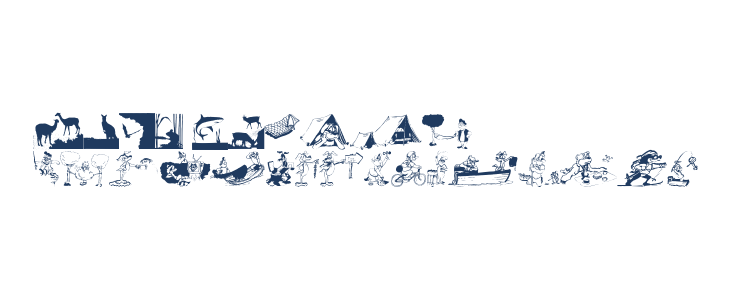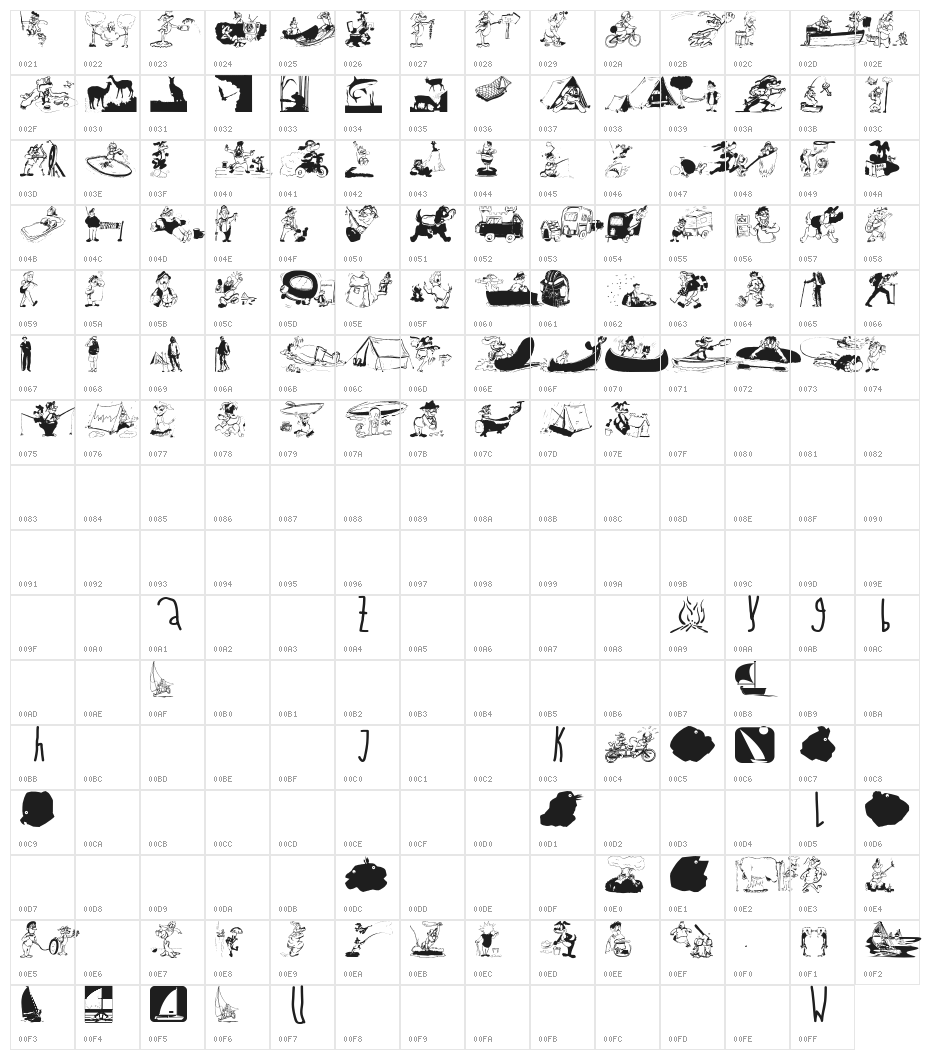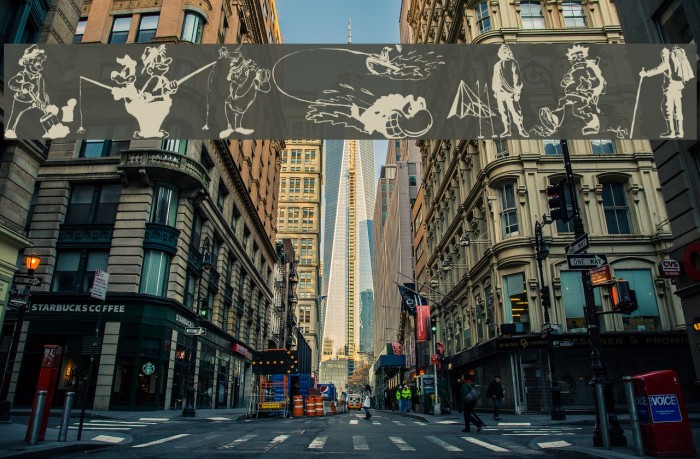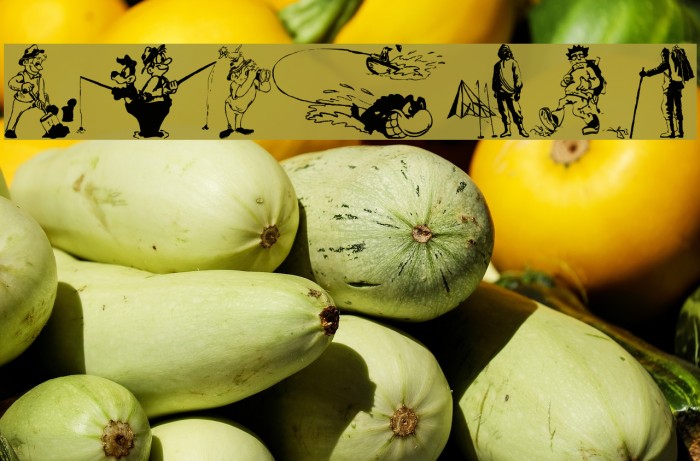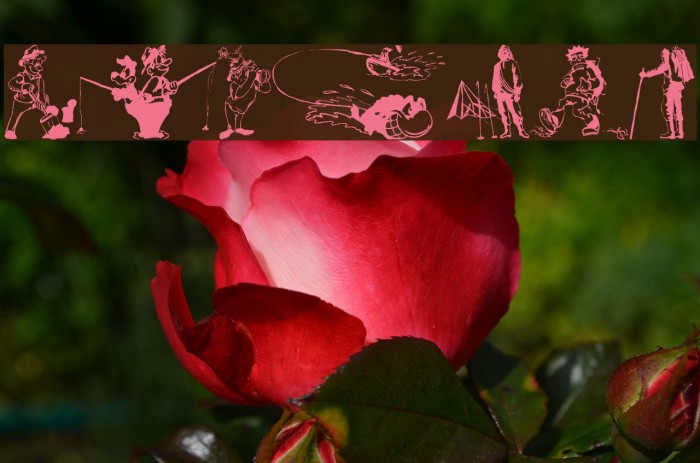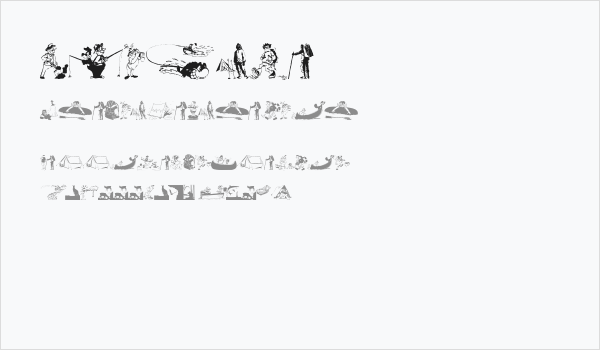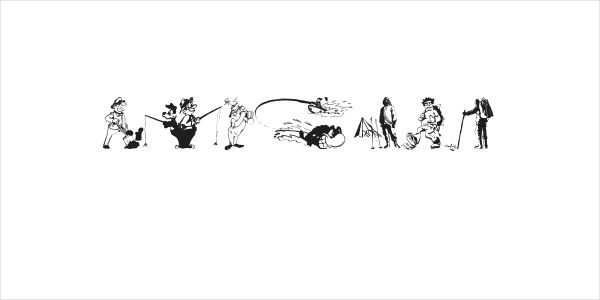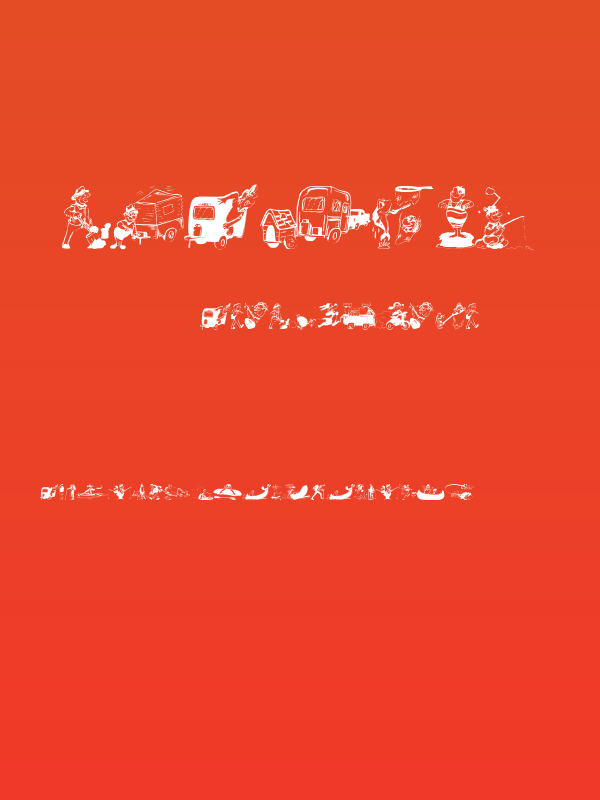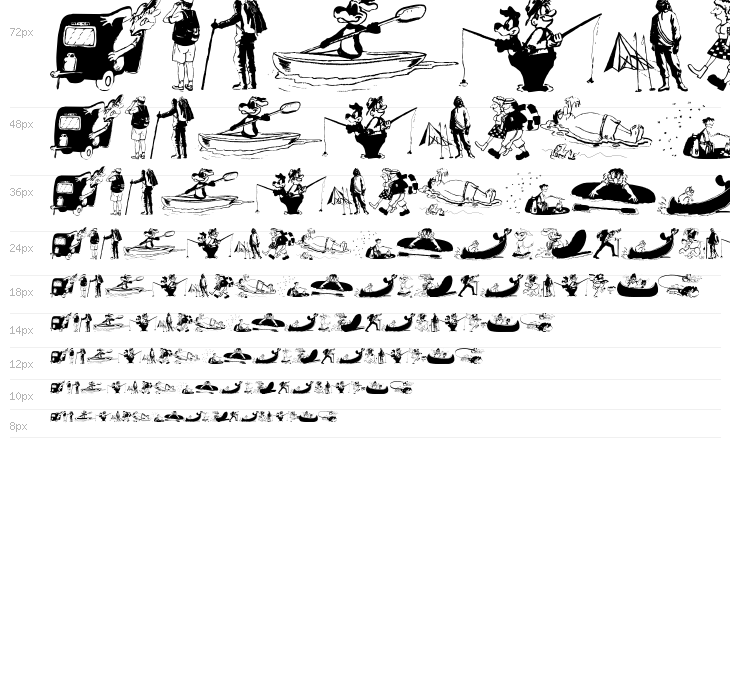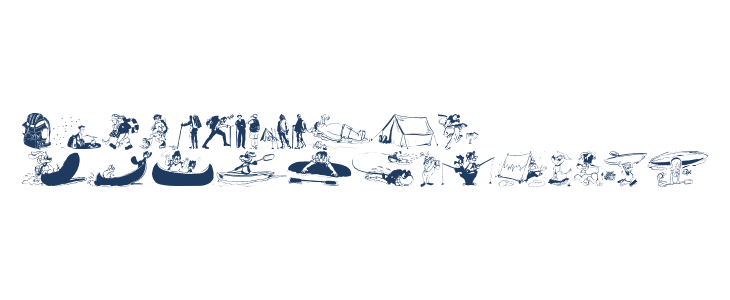
A playful, highly decorative font composed of detailed cartoon illustrations depicting outdoor activities, camping, and nature scenes for each character. The glyphs are unique drawings rather than traditional letterforms, making each character visually distinct and lively.
| Overall Style | Decorative, Playful, Whimsical |
| Use Case | Logos, Headlines, Posters, Themed Graphics |
| Proposed Projects | ChildrenΓ’β¬β’s books, event posters, summer camp flyers, themed party invitations, educational materials. |